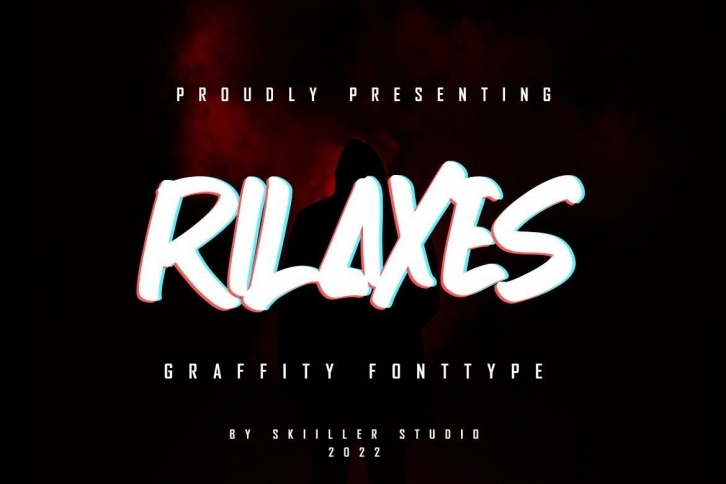
Rilaxes is a Graffiti display font suitable for your fun projects like children’s parties, cute quotes, or any cute fun-related projects. Grab it now!